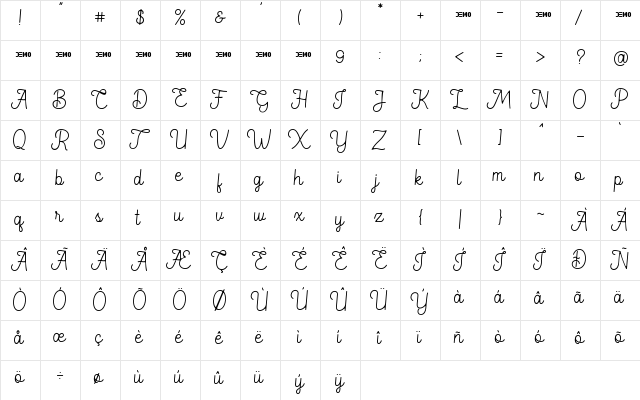
Jack&Jean Regular
| Foundry | Room Corner's Studio |
| Designer | M. Pria Admaja |
Design Context for Jack&Jean Typeface
Jack&Jean is a composed and adaptable typeface that performs quietly and consistently across a wide range of design contexts.